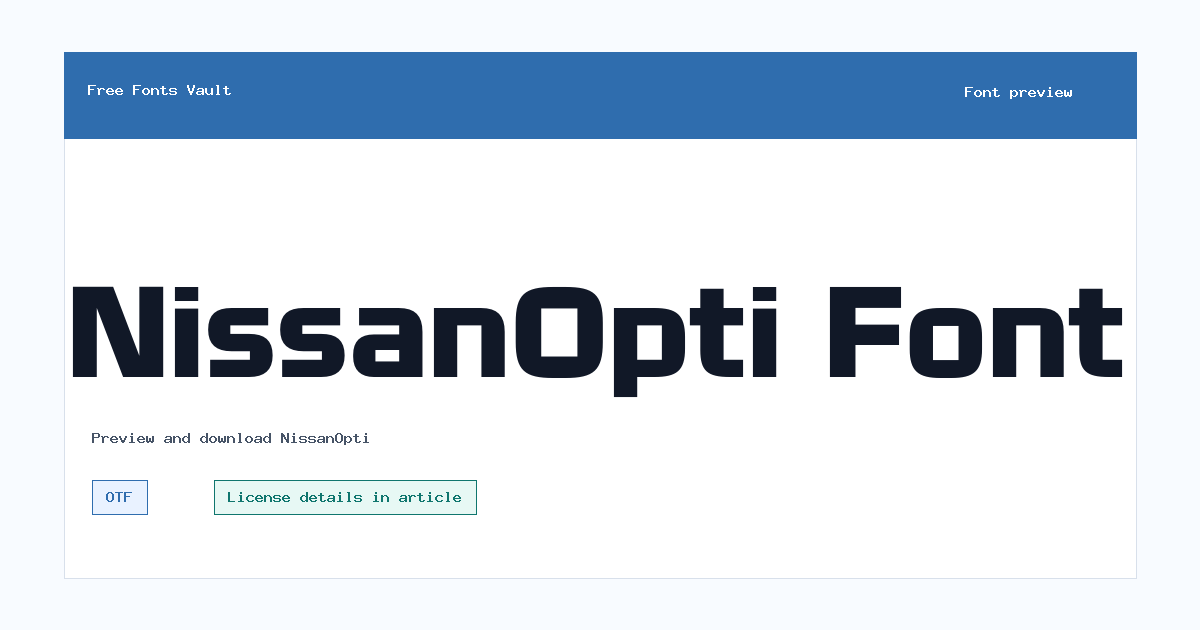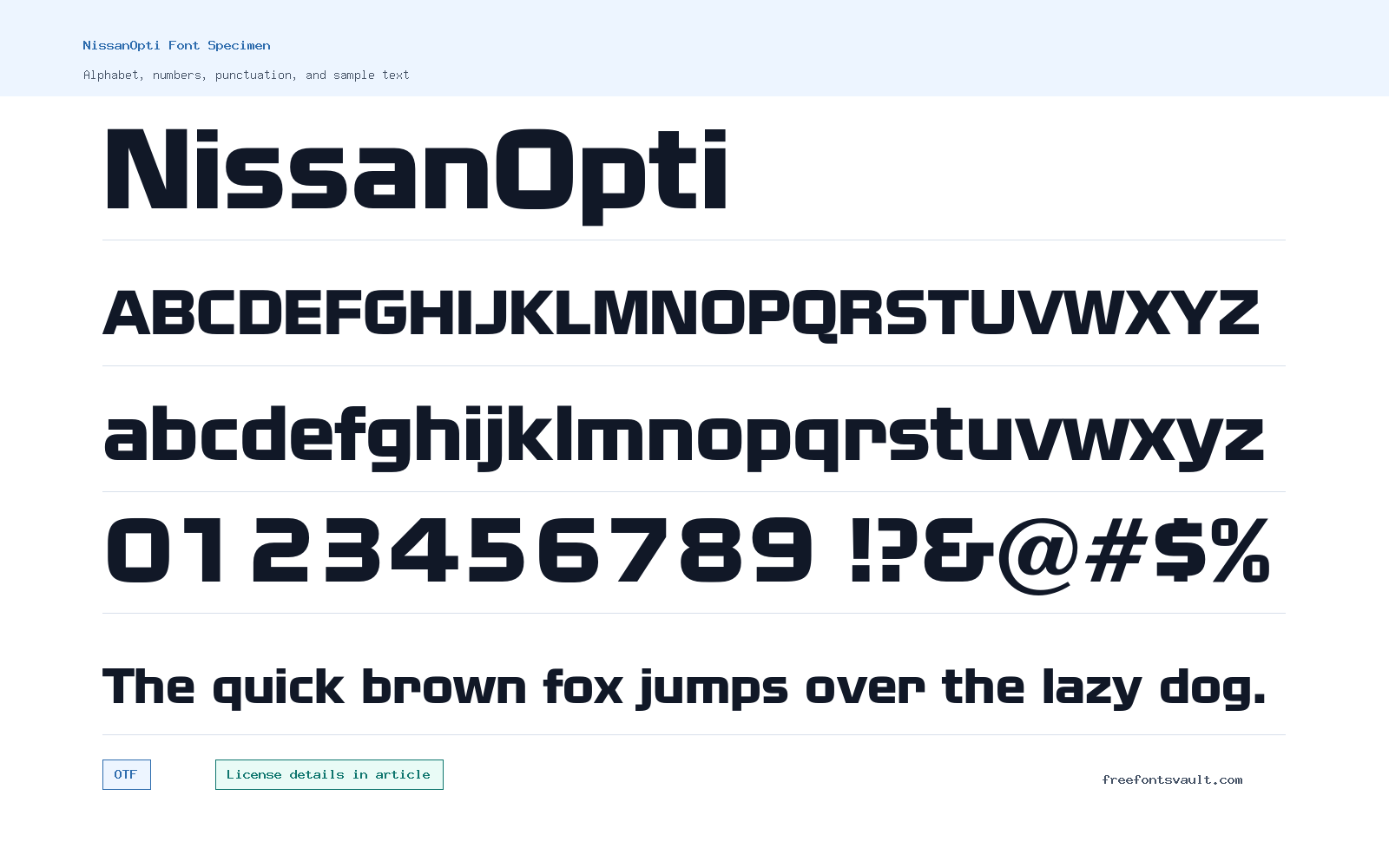
NissanOpti
- Foundry Castcraft Software, Inc.
NissanOpti is a compact display family with regular and italic OpenType files. It suits short, sharp lettering tests where you want an upright version and a slanted version of the same visual idea.
About NissanOpti Font
- Normal 400 weight in both upright and slanted styles.
- Display-friendly structure for short words, labels, and title tests.
- Useful when comparing straight and italic text treatments in the same design.
- Short titles, nameplates, badges, and graphic labels.
- Mockups that need both upright and italic display text.
- Poster headings, social graphics, and compact wordmarks for personal testing.
- Pairing with a neutral text font for descriptions and longer copy.
The embedded copyright line points to Castcraft Software, Inc. from the 1990-1993 period, but it is not a clean individual designer credit. The public credit has therefore been kept conservative rather than naming a designer that is not clearly confirmed.
Start by testing the exact short phrase you need, then compare the regular and italic files. Watch spacing in all-caps text and check numbers or punctuation if the design includes them. For readability, use NissanOpti as an accent or headline and choose a simpler companion font for body copy.
Is NissanOpti good for body text?
It is better for short display text. Use a cleaner reading font for paragraphs, captions, and interface text.